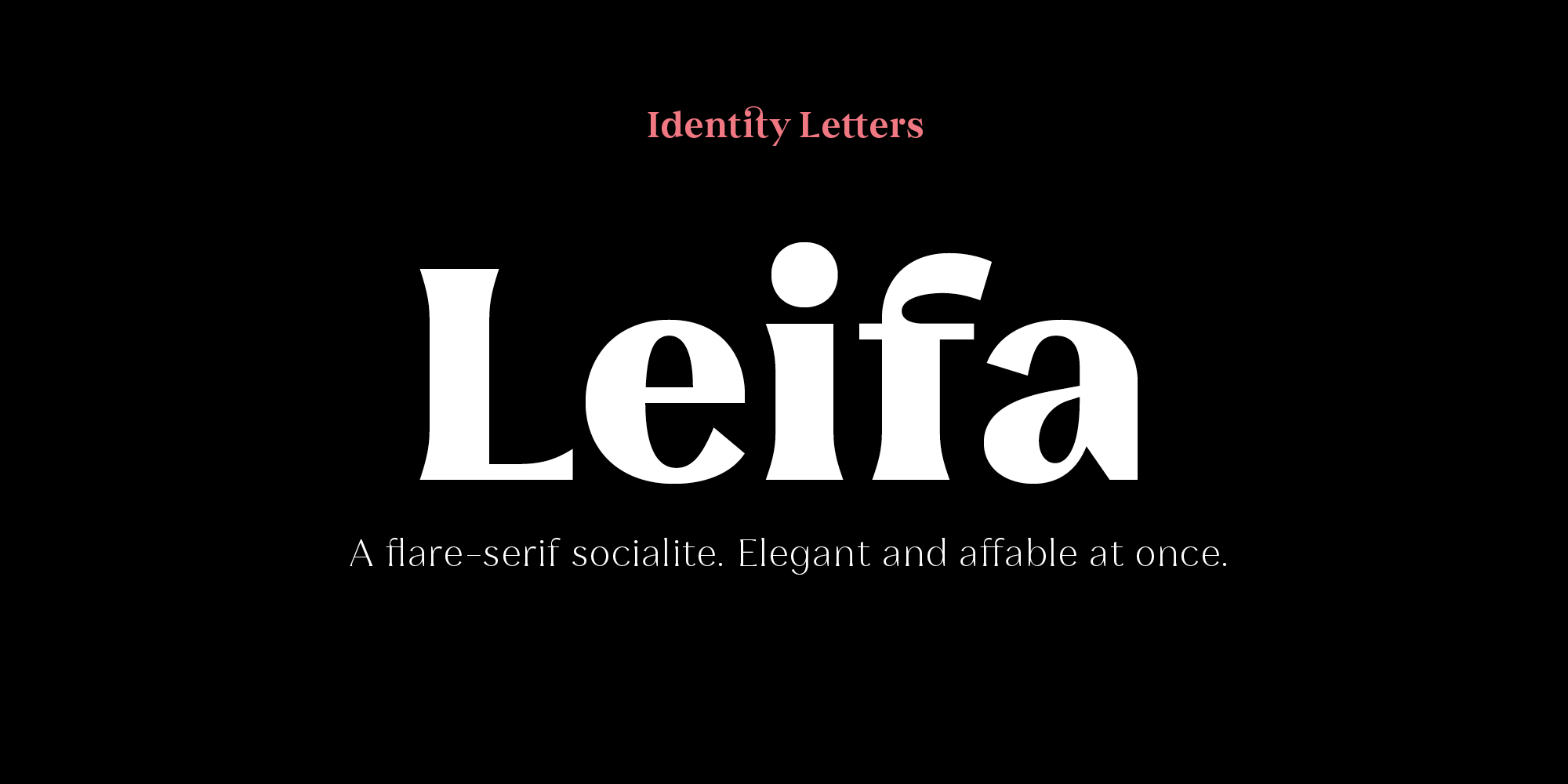
Leifa Font is ideal for organic lifestyle brands, natural wellness products, eco-friendly packaging designs, botanical illustration labels, sustainable fashion marketing, nature photography portfolios, environmental awareness campaigns, organic restaurant menus, herbal medicine branding, and earth-conscious business communications.
What makes Leifa Font exciting is its organic flow and natural harmony that captures the essence of life's organic rhythms with graceful elegance and botanical beauty. This enchanting typeface embodies the spirit of natural growth with its flowing curves and organic proportions that seem to breathe with the gentle rhythm of leaves dancing in a summer breeze. The font's life-affirming character creates an immediate connection to nature's nurturing energy and the peaceful tranquility found in organic living.
Leifa Font family includes regular weight with naturally inspired character designs featuring organic curves and botanical proportions. The typeface maintains excellent readability while showcasing its distinctive nature-focused personality through carefully crafted letterforms that seem to grow organically from the earth like tender shoots reaching toward sunlight.
Sustainable brand designers consistently choose Leifa Font Free Download for projects requiring authentic natural appeal and organic credibility. This remarkable typeface brings the serenity of natural living to brand communications, combining botanical aesthetics with environmental consciousness to create harmonious experiences that nurture both mind and spirit. The thoughtfully designed characters ensure peaceful visual impact across all applications, making it essential for wellness brands, organic companies, and any organization seeking to communicate the transformative power of natural living and the gentle healing that comes from embracing life's organic wisdom through Leifa Font Free Download.